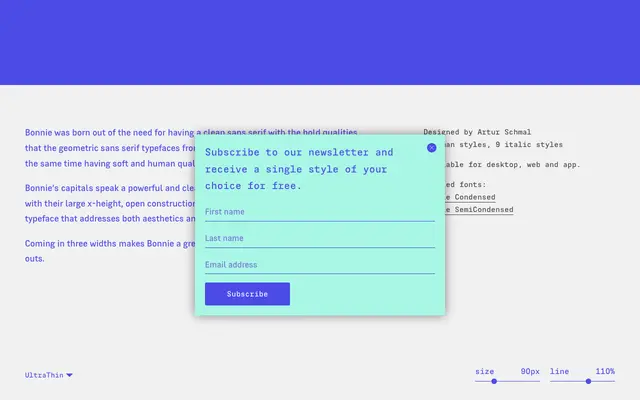
Bonnie
Original Type · Artur Schmal
A geometric sans by Artur Schmal that blends the bold presence of mid-century geometric typefaces with open, curvy details intended to produce a warmer, more approachable tone.
Available across three widths, Bonnie is designed for copy-fitting flexibility across a range of layouts. The capitals carry clarity and weight while the lowercase, with its large x-height and open construction, keeps the family legible and approachable at text sizes. Nine weights from UltraThin to Black, each with a matching italic, extend across the standard, SemiCondensed and Condensed variants for a total of 54 styles in the full suite.
Bonnie draws from twentieth-century geometric sans traditions while incorporating open, humanist details and a large x-height, placing it at the junction of geometric and humanist sans-serif.